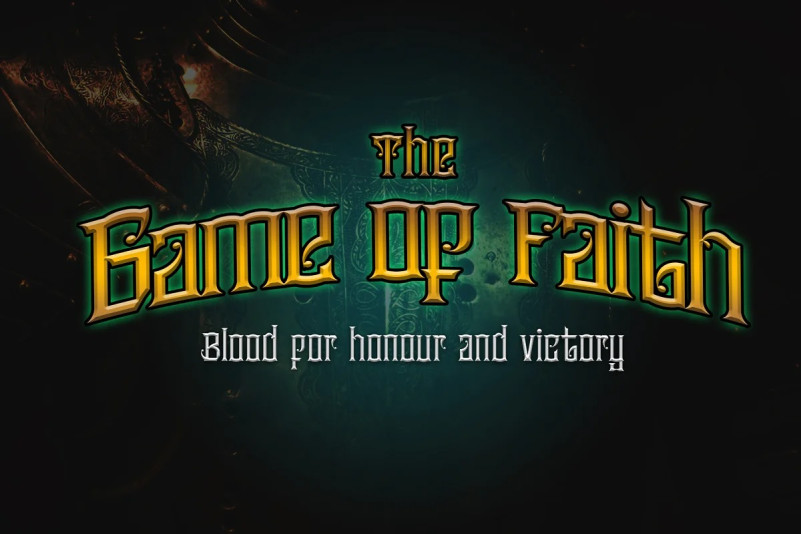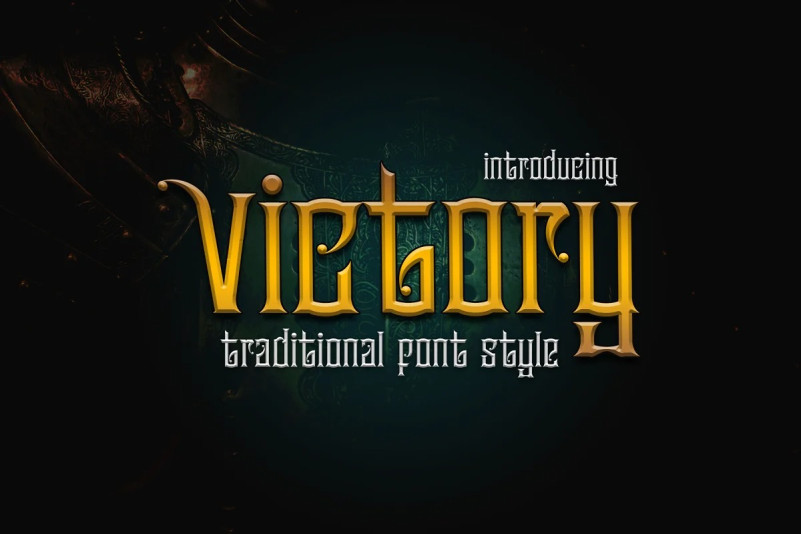
Victory Font
The Victory font is used for display purposes, logos, titles, merchandise and t-shirt designs for other creative needs, with classic and ornamental styles, traditional shapes, very suitable for traditional, modern, culture, war, gothic and impression themed designs. elegant and classic. make this font an item to complement your design collection assets.